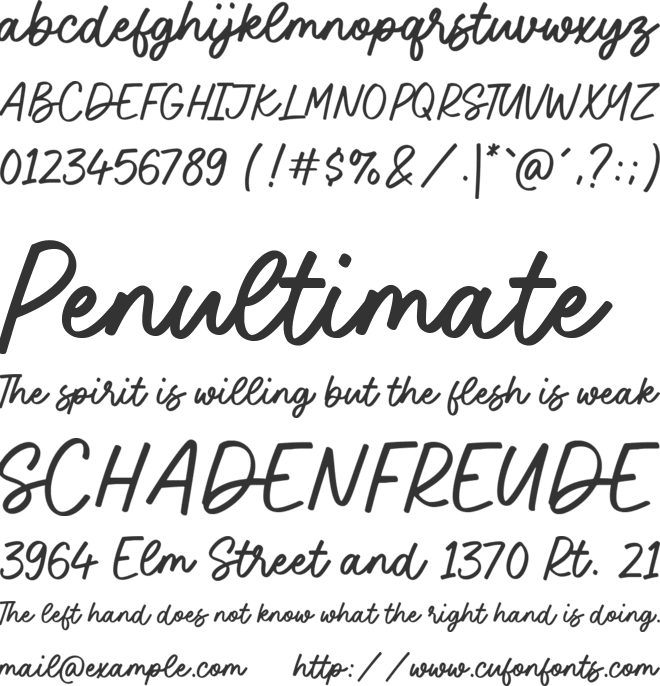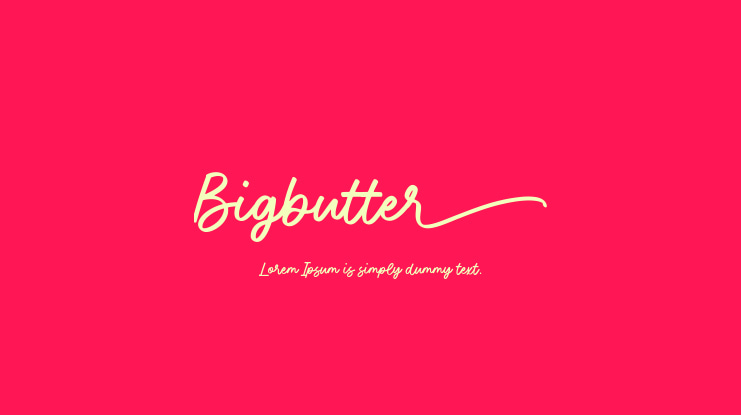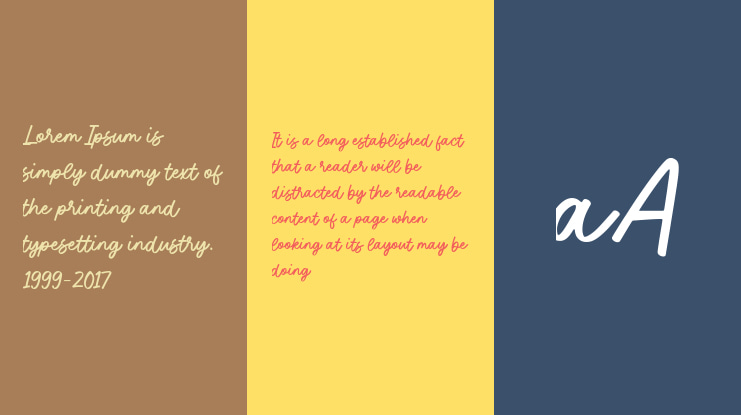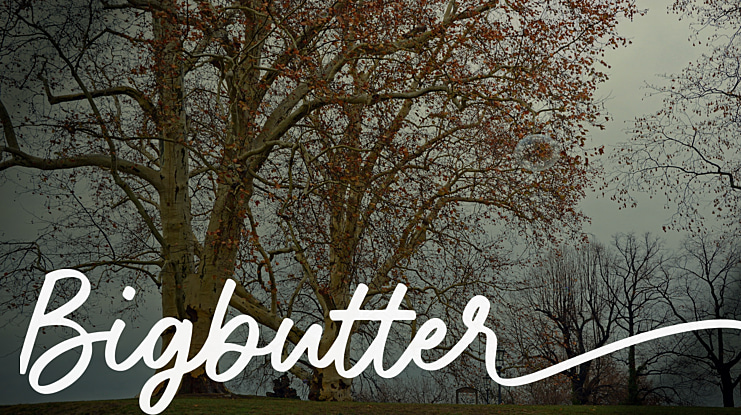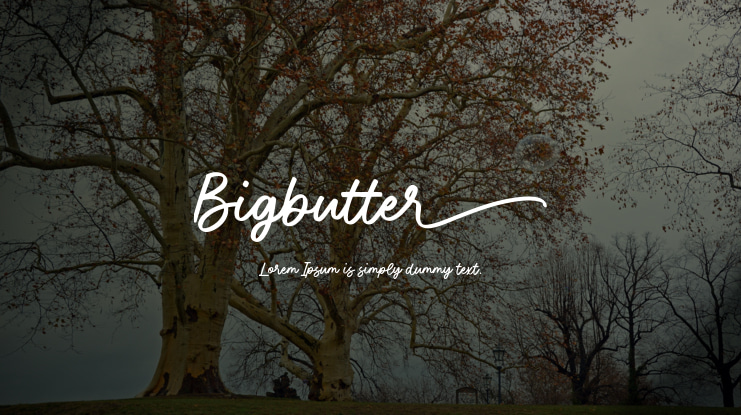
Introduced by Timur type
Proudly Present Bigbutter
Bigbutter is a Handwritten script font that is modern and fresh, and will bring a warm and inviting feel to your business. Take advantage of the fonts and experience the magic for yourself.
Bigbutter is perfect for product packaging, branding project, megeenazine, social media, wedding, or just used to express words above the background.
Bigbutter Font Features premium :
-Full Set of standard alphabet and punctuation
– extra set Begening font lowercase
– Bigbutter also multilingual support.